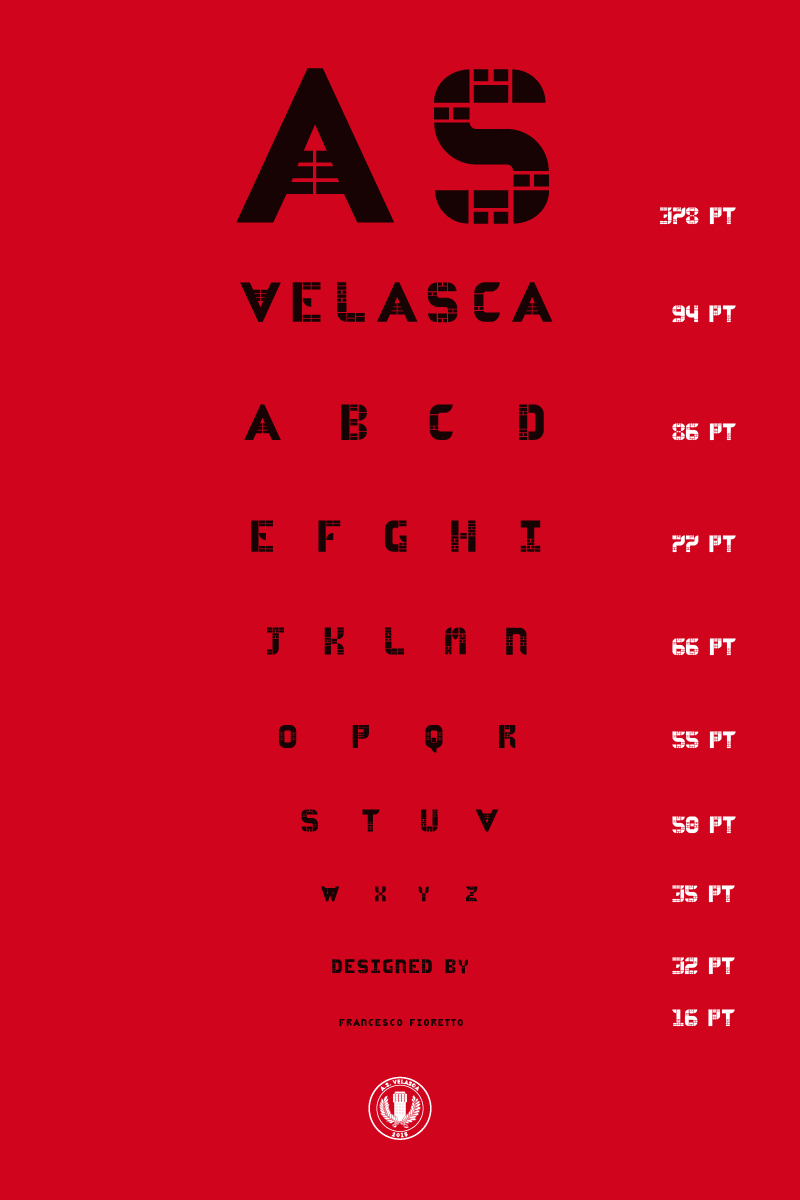
Font name: | As-Velasca |
Author: | Francesco Fioretto |
Note by Francesco Fioretto | |
The Velasca's typeface has been designed for the most artistic football club in the world, the A.S. Velasca. The typeface respects the proportions, the curves and the morphology of the Velasca Tower in Milan. The structuralistic appearance is studied not to bother the clarity of the letters both from closed and far reading. |